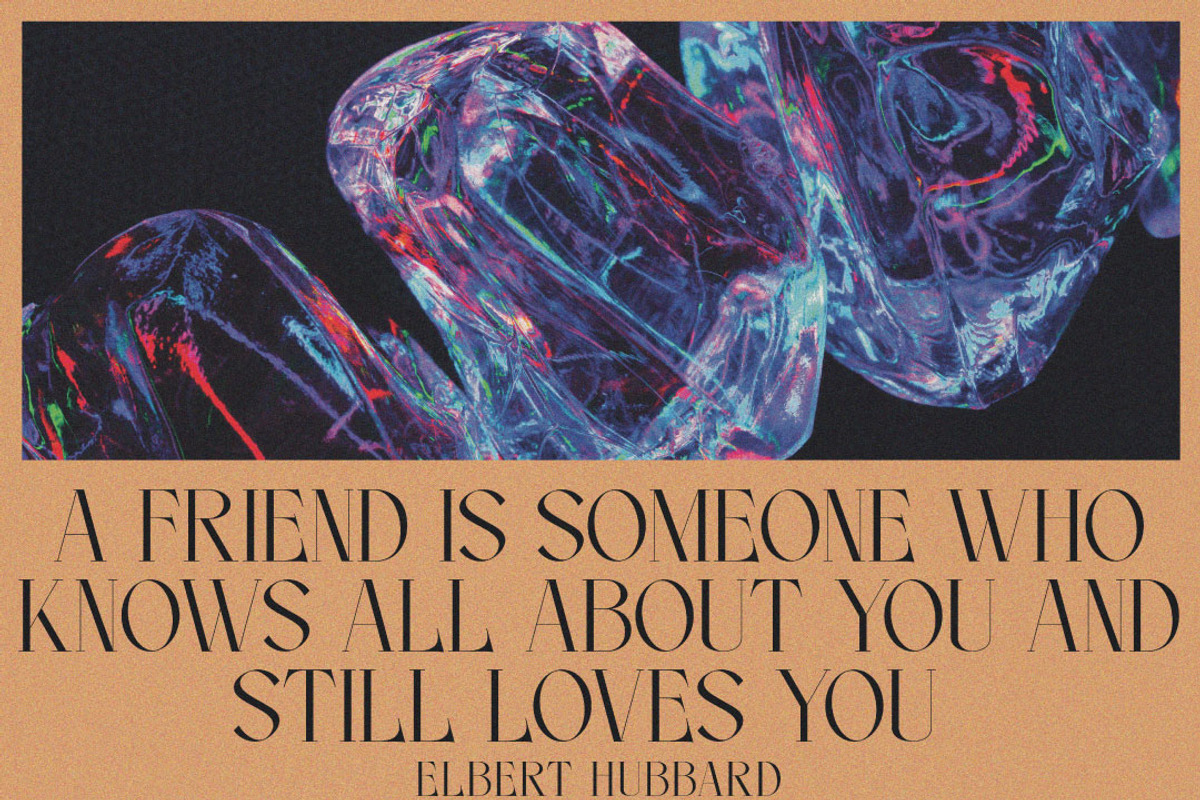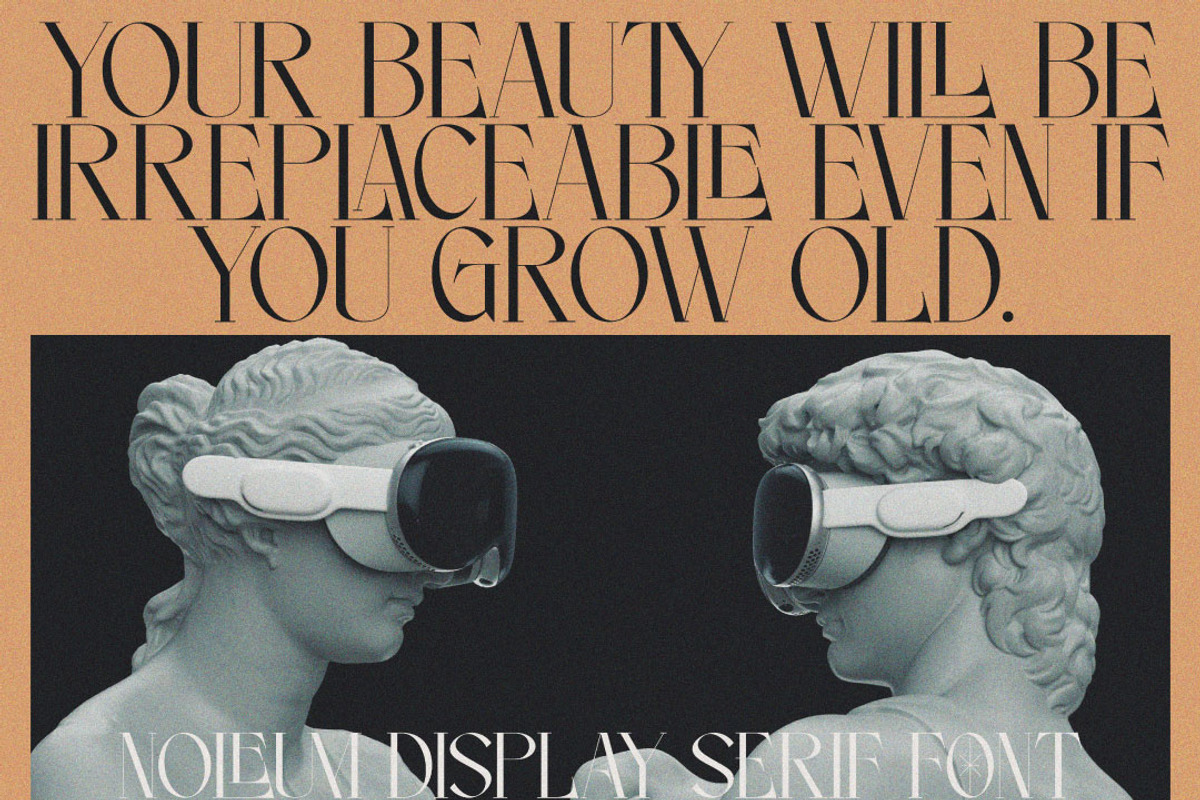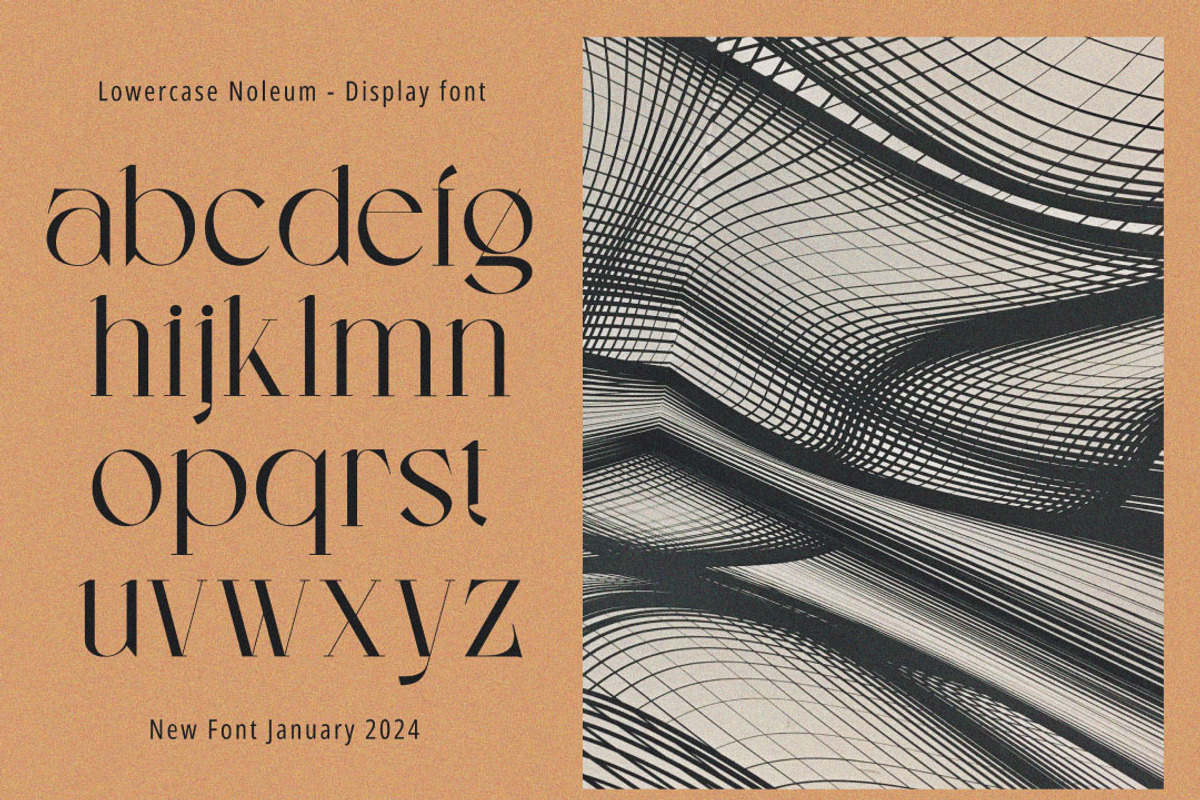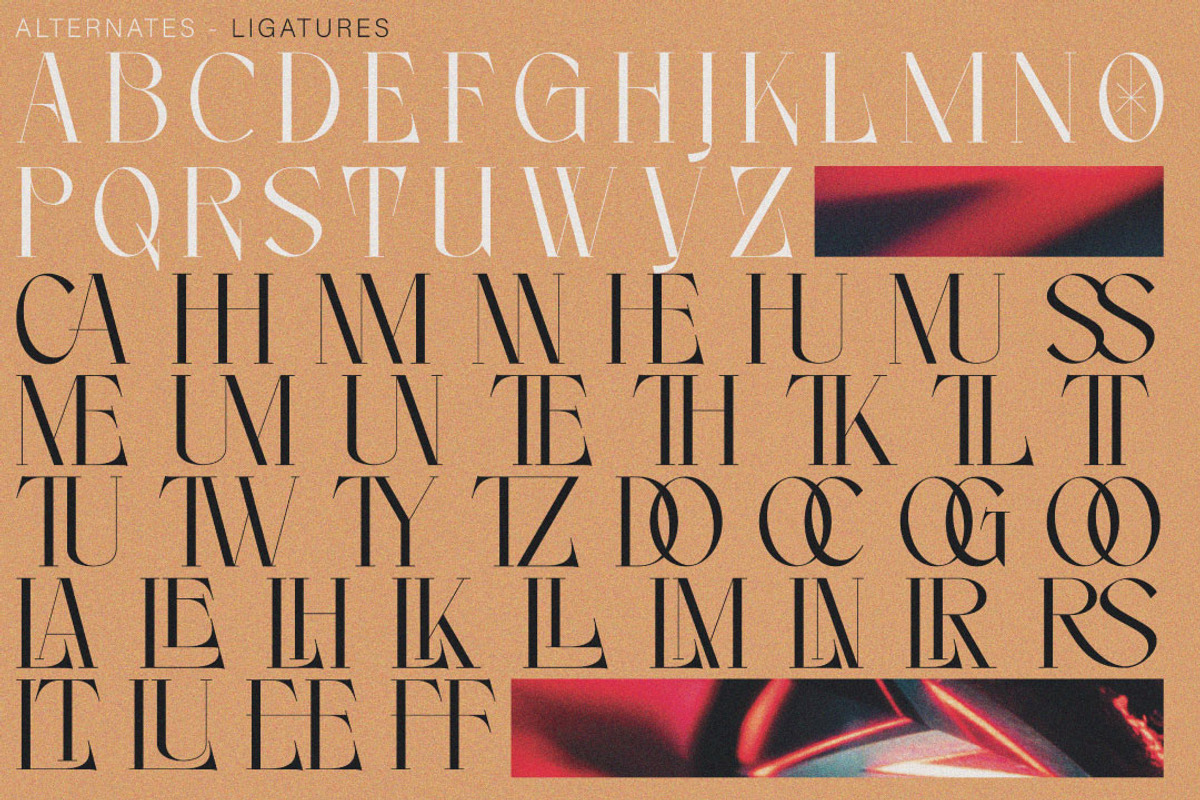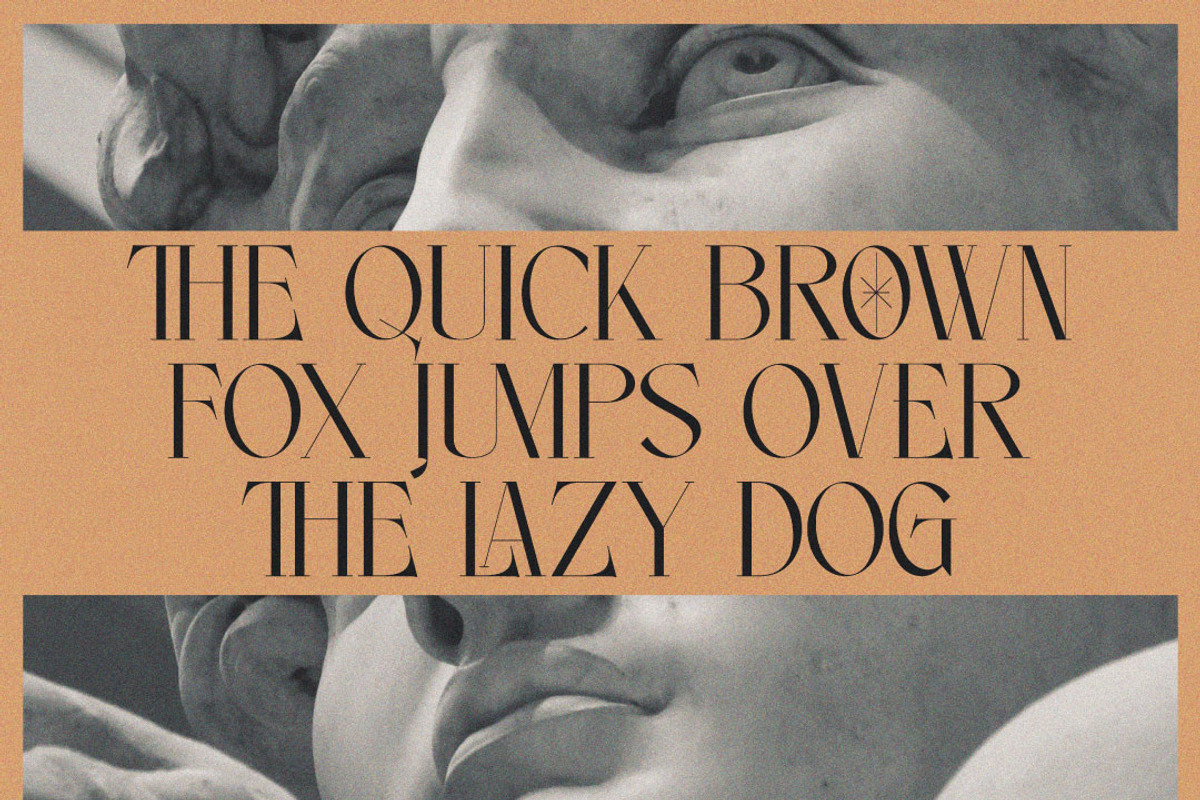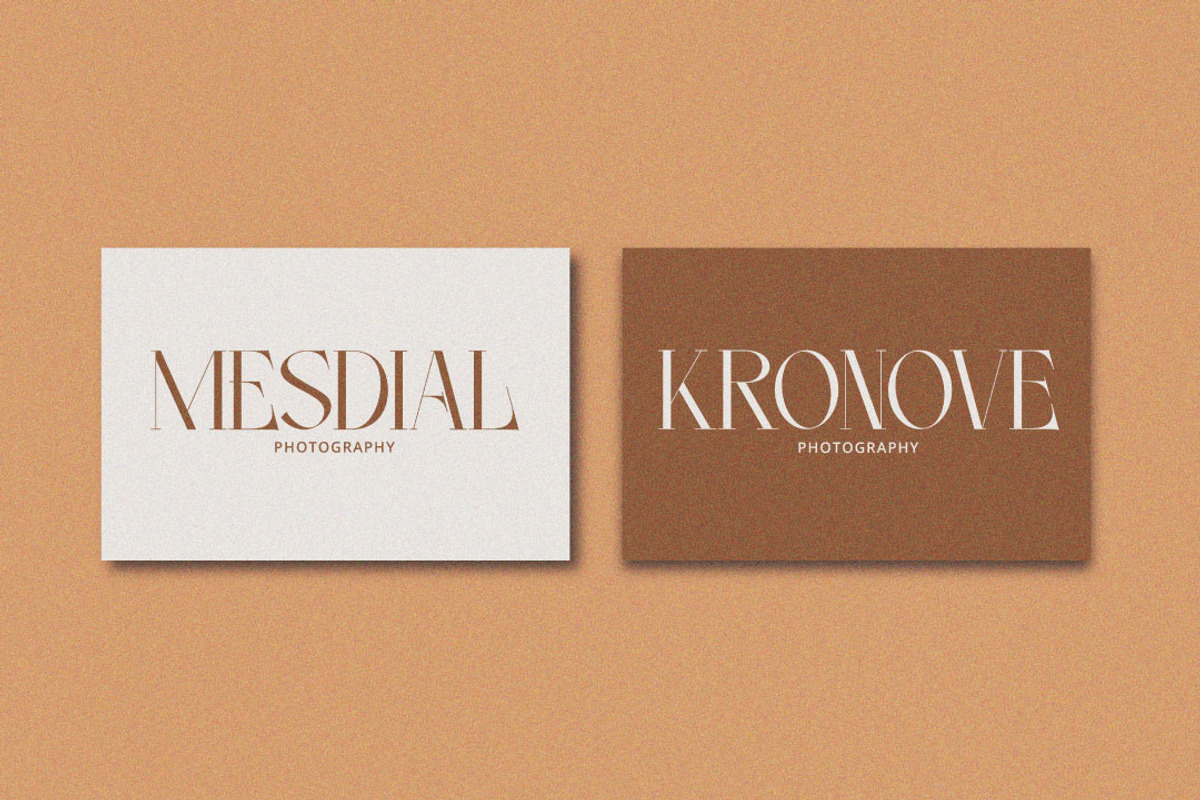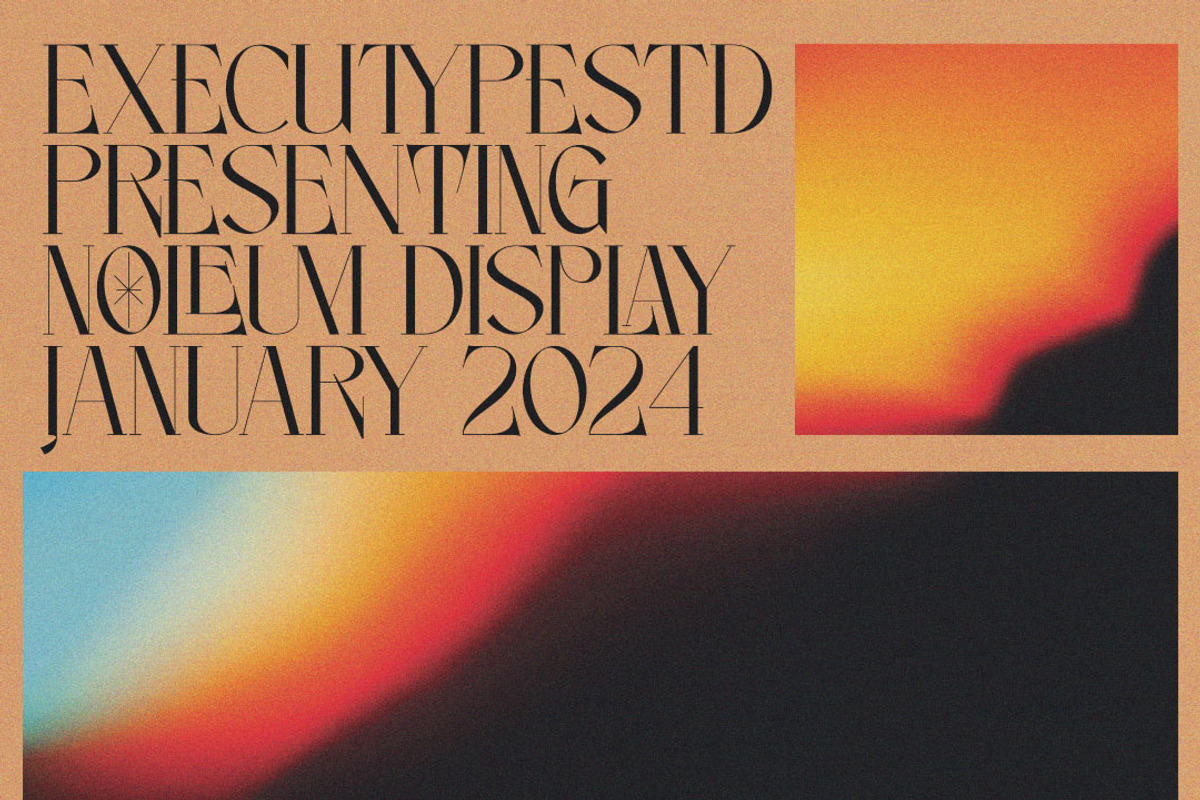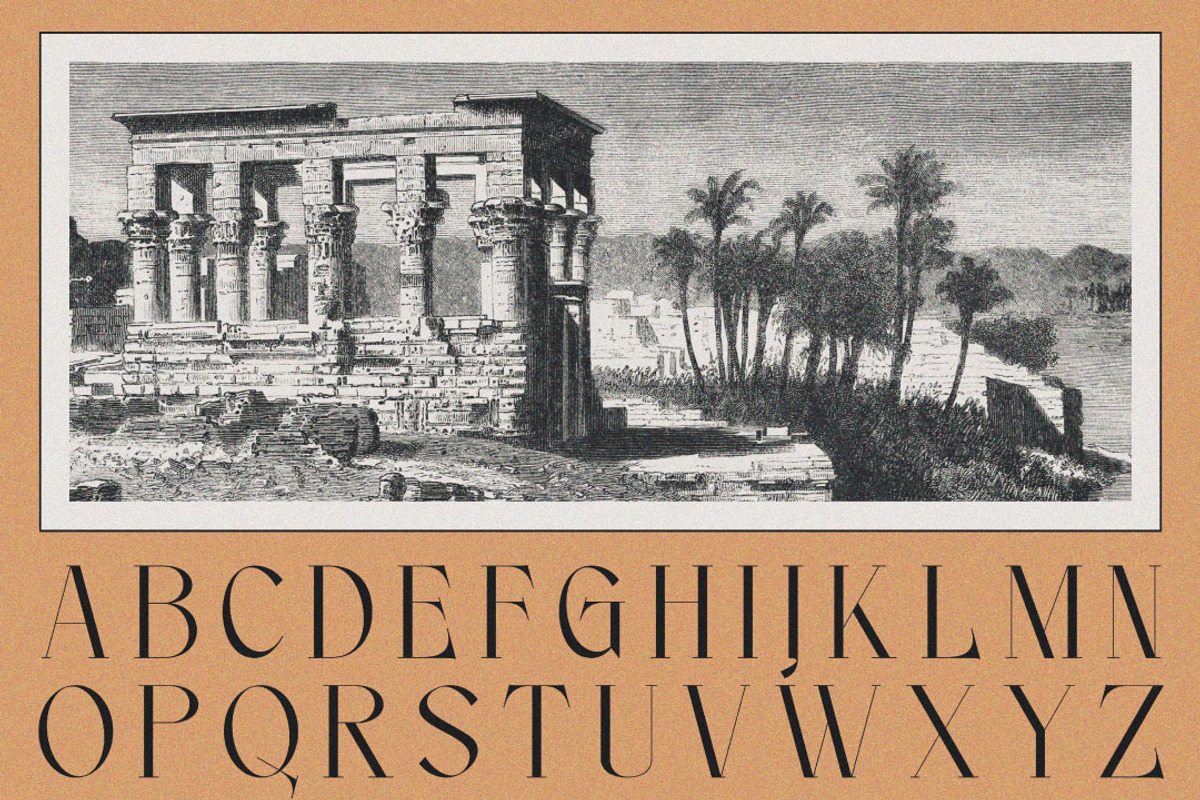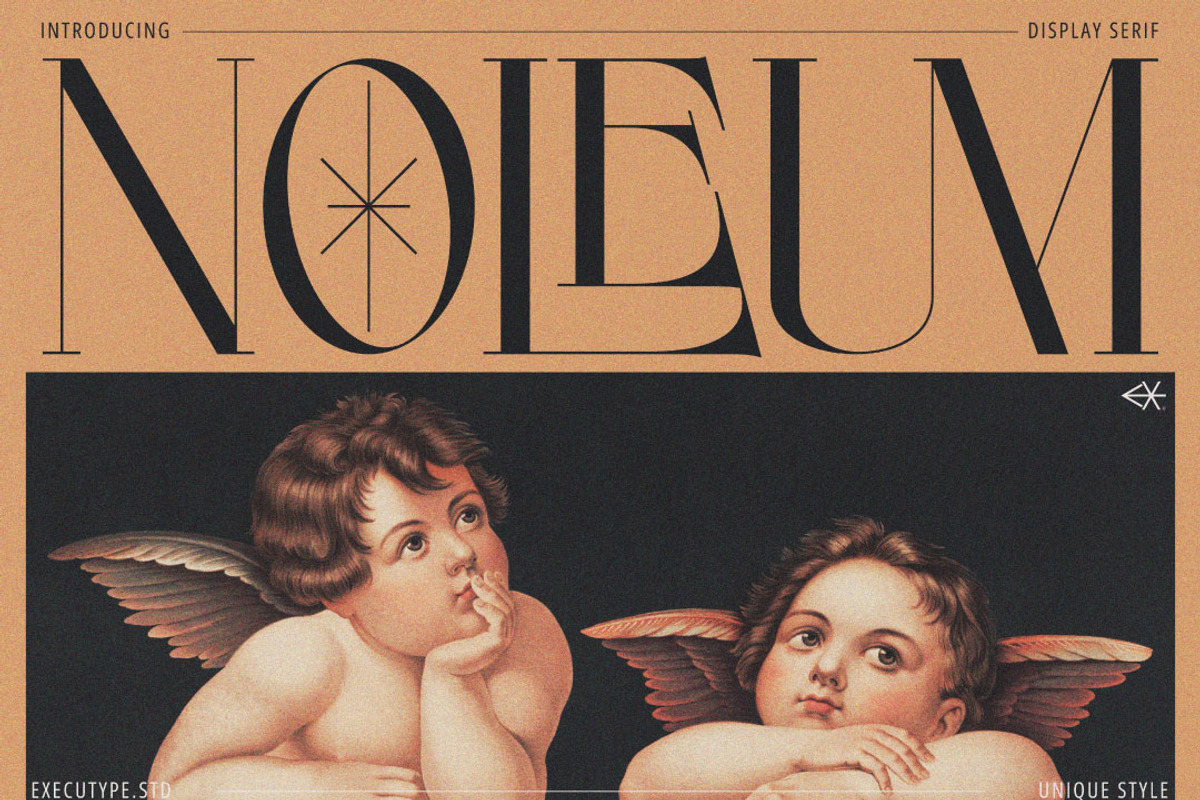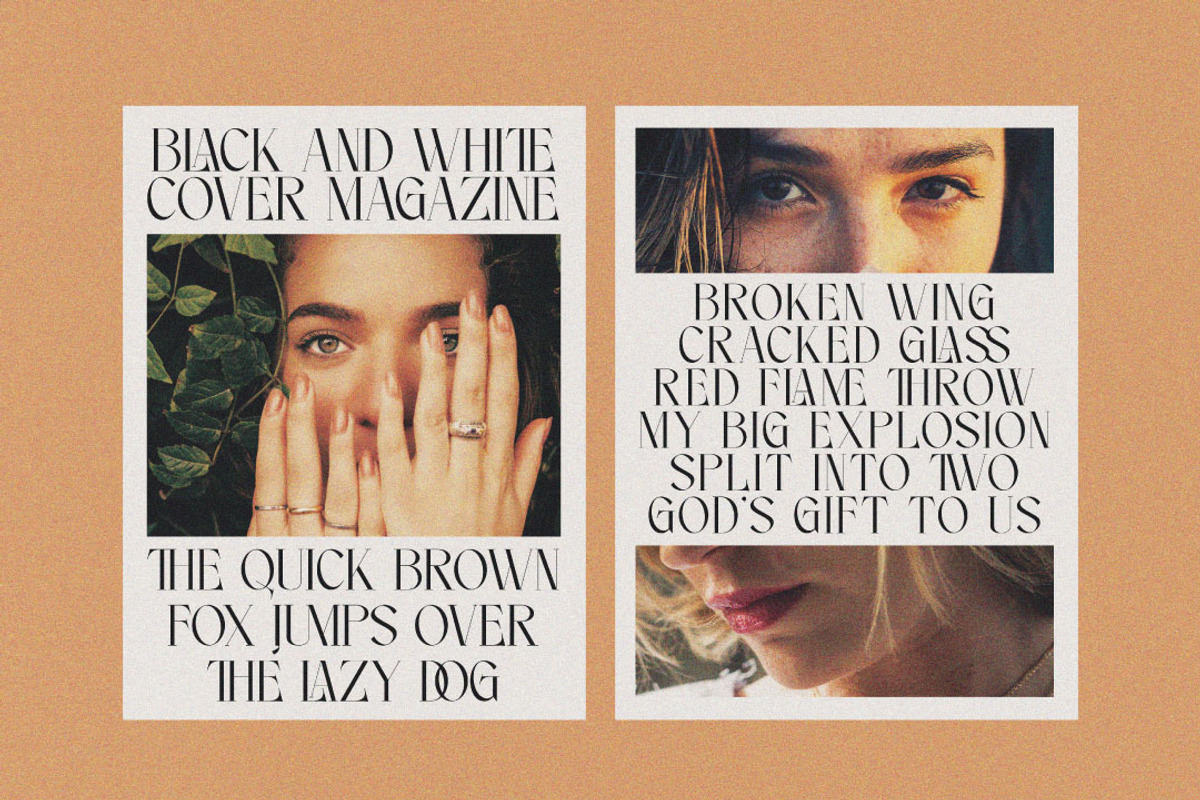
Noleum - Display Serif
Noleum Display Serif a new fresh & modern serif with a strong style, a dancing baseline! So beautiful on invitation like greeting cards, branding materials, business cards, quotes, posters, and more!
Noleum Display Serif is the part of a strong and modern Bold display. This typeface both impressive at display sizes and easily readable in text size, while the sharp shapes of the triangular serif and the distinctive letter shapes show their strength in logo design and impressive editorial use.